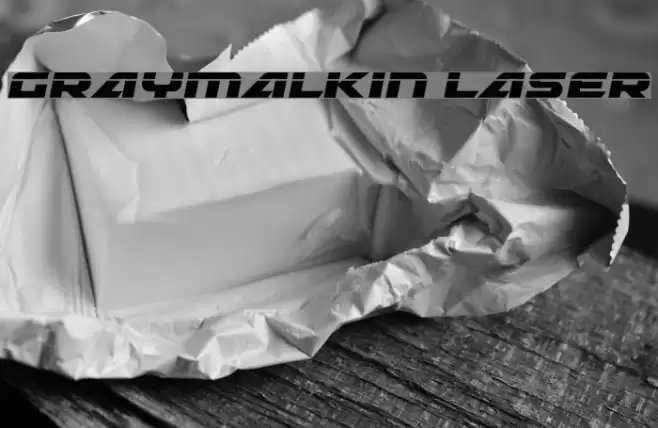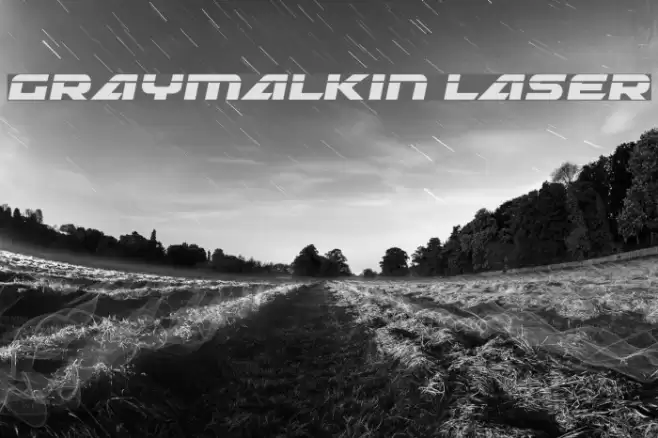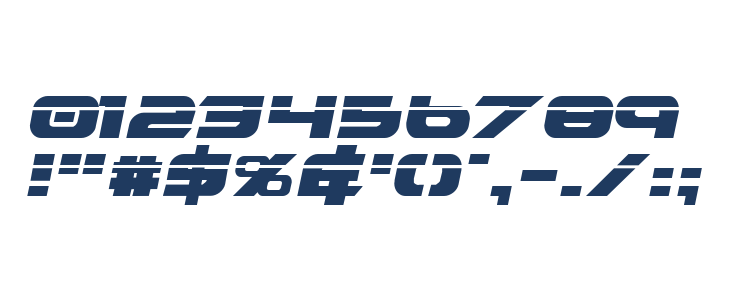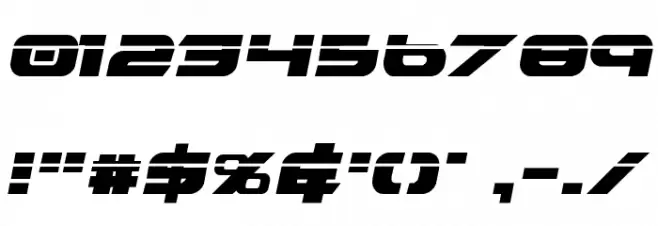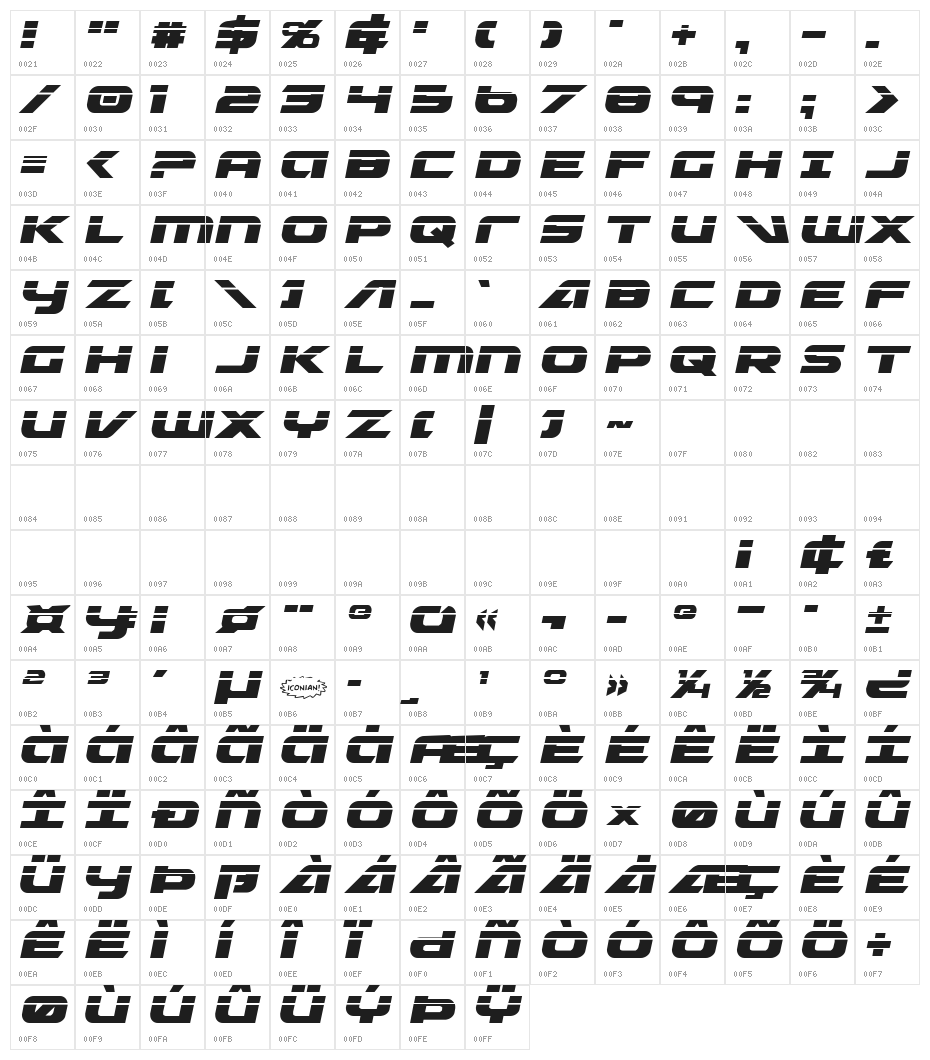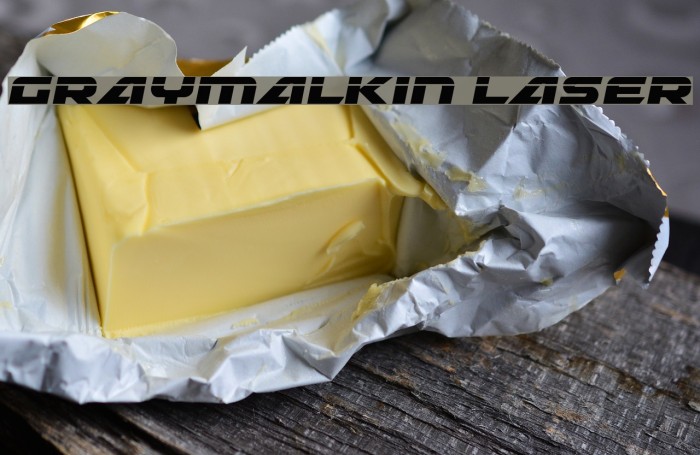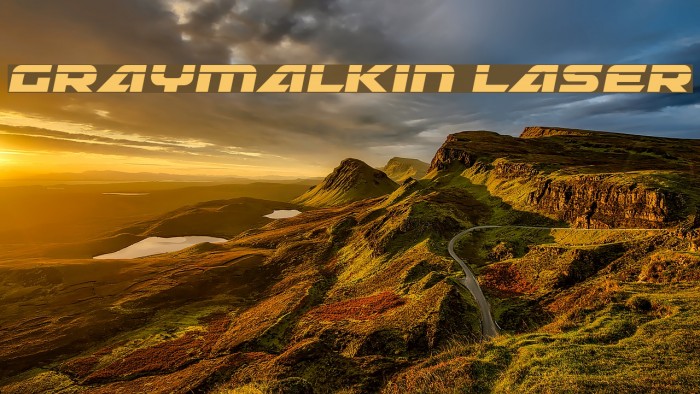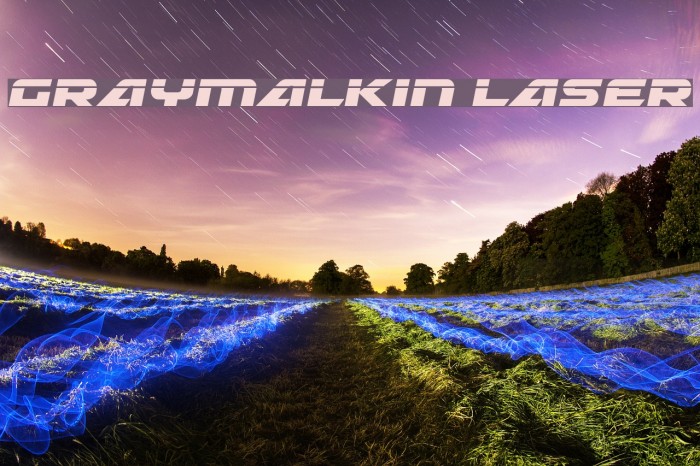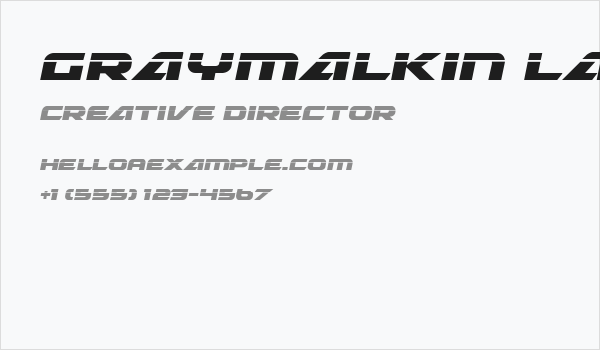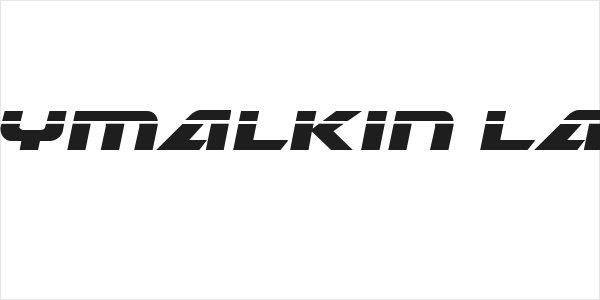
Graymalkin Laser Font
Graymalkin Laser Description
This font features a futuristic and angular design, characterized by sharp edges and a sleek, modern appearance. The letters are slightly italicized, giving a sense of motion and dynamism. The uppercase and lowercase characters maintain a consistent style, with a bold presence that makes them stand out. The numbers and special characters follow the same design principles, ensuring uniformity across all glyphs. This font is ideal for projects that require a modern and edgy look, such as technology branding, sci-fi themed designs, or video game titles.
A futuristic, angular font with a bold and dynamic style from Uncategorized fonts.
- Proposed Projects: Ideal for technology branding, sci-fi themes, video game titles, and modern advertising.